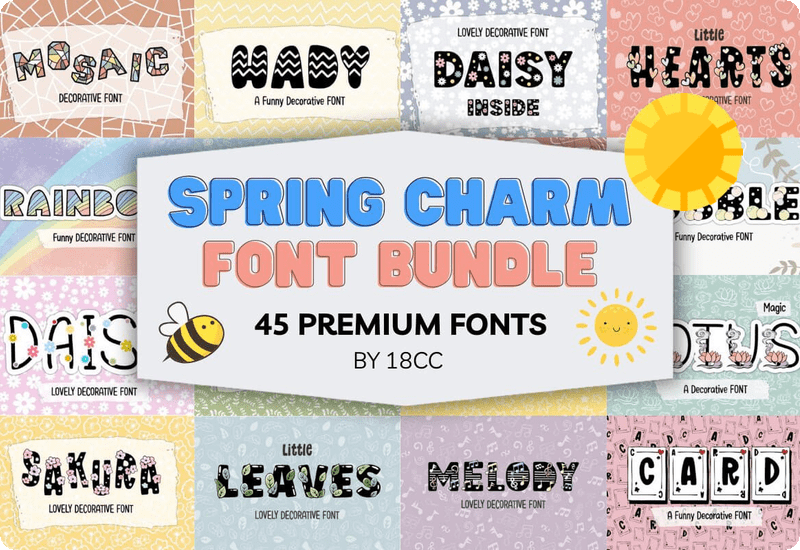
What is the Spring Charm Font Bundle?
The Spring Charm Font Bundle is a curated collection of 45 stunning fonts, ranging from decorative styles to elegant scripts, all crafted to infuse your designs with the essence of spring. With a commercial license included, this bundle offers versatility and creativity for a wide range of projects.
Premium Fonts included in this bundle:
- Little Stars Czcionki Dekoracyjne Czcionka
- Card Decorative Font
- Daisy Decorative Font
- Stitch Fuentes Decorativas Fuente
- Melody Polices Décoratives Police
- Mosaic Decorative Font
- Little Daisy Decorative Font
- Little Leaves Decorative Font
- Daisy Inside Polices Décoratives Police
- Little Hearts Decorative Font
- Morgan Serif Font
- Hello Party Decorative Font
- Goodnight Decorative Font
- White Box Decorative Font
- Magic Lotus Decorative Font
- Little Ghost Decorative Font
- BlackBox Czcionki Dekoracyjne Czcionka
- So Hot Decorative Font
- Milky Decorative Font
- Holly Font Decorativi Font
- Mini Heart Script & Handwritten Font
- Splash Decorative Font
- Little Ribbon Decorative Font
- Sunfa Font Decorativi Font
- That Rainbow Decorative Font
- Virus Decorative Font
- Tick Tick Decorative Font
- Little Blood Fuentes Decorativas Fuente
- Monoslim Font Corsivi Font
- Bubble Decorative Font
- So Cool Decorative Font
- Funny Rainbow Dingbats Font
- Leopard Decorative Font
- Usagi Decorative Font
- Shady Decorative Font
- Sakura Fuentes Decorativas Fuente
- Sweety Display Font
- Wonder Display Font
- Hady Decorative Font
- Little Whale Dingbats-Schriftarten Schriftart
- Pollen Fuentes Decorativas Fuente
- Funny Ghost Dingbats Font
- Gem Decorative Font
- Round Decorative Font
- Umbrella Summer Decorative Font
Advantages of the Spring Charm Font Bundle
- Versatility: From whimsical decorative fonts to classic serif styles, this bundle caters to various design needs.
- Fresh Design: The fonts in this bundle bring a touch of spring charm and elegance to your projects.
What is the Spring Charm Font Bundle For?
The Spring Charm Font Bundle is perfect for designers, artists, marketers, and anyone looking to add a unique flair to their creations. If you’re working on branding materials, social media graphics, invitations, or any other design project, this bundle provides the perfect tools to make your vision come to life.
Why Choose the Spring Charm Font Bundle?
With a wide selection of fonts at your disposal, the Spring Charm Font Bundle offers endless possibilities for creativity. Stand out from the crowd with distinctive typography that captures the spirit of spring and adds a special touch to your designs.
Best Use Cases for the Spring Charm Font Bundle
- Branding: Create a cohesive brand identity with unique and eye-catching fonts.
- Social Media Graphics: Make your posts pop with stylish typography that grabs attention.
- Invitations and Stationery: Add a touch of elegance to your event invitations and stationery.
- Artistic Projects: Let your creativity shine in artistic endeavors like posters, prints, and more.